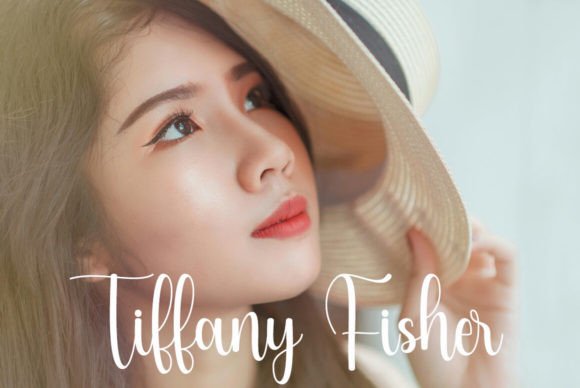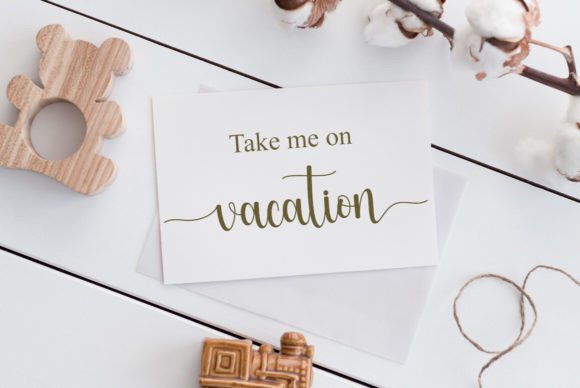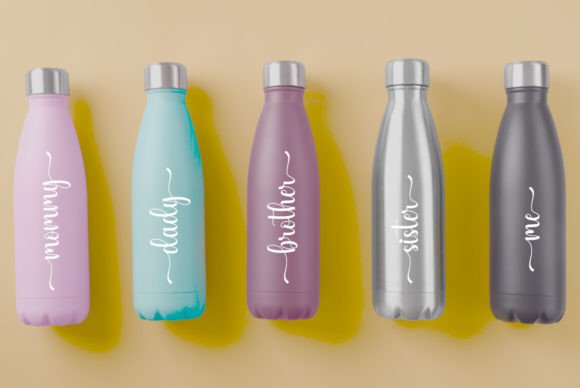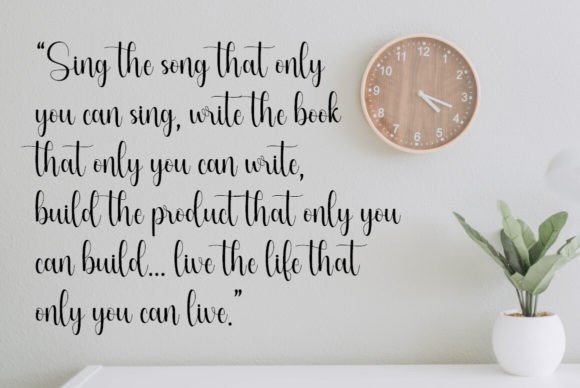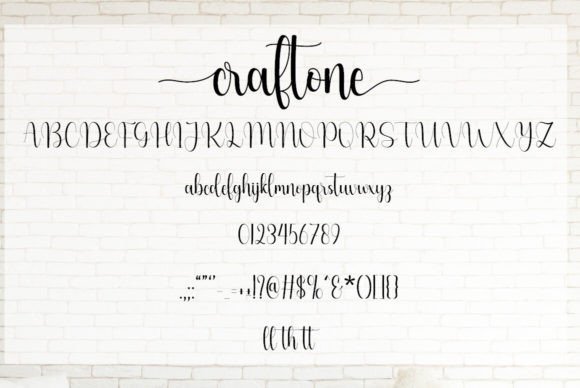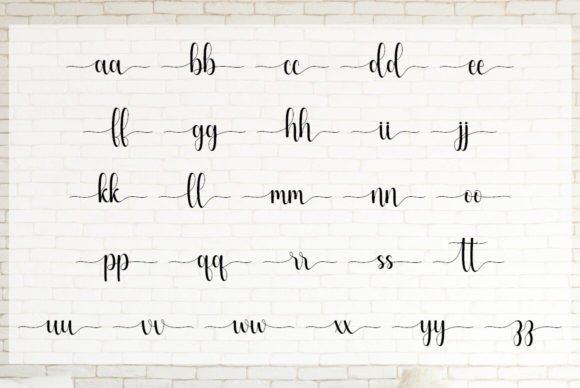
Introducing Craftone Font: Elevate Your Designs with Elegance and Style
In the world of typography, a well-crafted font can make all the difference in transforming a design from ordinary to extraordinary. Meet Craftone, a stunning handwritten font that embodies the perfect blend of elegance and style. This beautiful font is designed to add a touch of sophistication to various design projects, including wedding invitations, appreciation notes, memorable quotes, greeting cards, business cards, logos, and more.
The Charm of Craftone
Craftone boasts an exquisite charisma that sets it apart from other fonts. Its elegant and refined appearance makes it an ideal choice for designers and crafters looking to add a personal touch to their work. Whether you’re creating a wedding invitation, a business card, or a social media graphic, Craftone’s unique charm is sure to captivate your audience.
One of the standout features of Craftone is its versatility. This font can be used in a wide range of design projects, from formal events to casual expressions. Here are some ideas to get you started:
- Wedding invitations and ceremony programs
- Appreciation notes and thank-you cards
- Memorable quotes and social media graphics
- Warm greeting cards and holiday cards
- Professional business cards and logos
Craftone isn’t just a visually appealing font; it’s also PUA (Private Use Area) encoded, making it easy to access a delightful assortment of glyphs and alternates. This feature allows designers to experiment with different variations and create unique designs that stand out from the crowd.
A Creative Tool for Designers and Crafters
Craftone is more than just a font; it’s a creative tool designed to help designers and crafters deliver unforgettable expressions. With its elegant appearance and versatile features, this font is perfect for:
- Graphic designers looking to add a personal touch to their work
- Crafters creating handmade cards and invitations
- Small business owners seeking to establish a unique brand identity
- Social media influencers and bloggers looking to elevate their visual content
Why Choose Craftone?
With so many fonts available, why choose Craftone? Here are just a few reasons:
- Unique and elegant appearance
- Versatile and adaptable to various design projects
- PUA encoded for effortless access to glyphs and alternates
- Easy to use and integrate into your design workflow
- Perfect for designers and crafters looking to add a personal touch to their work
In conclusion, Craftone is a breathtaking fusion of elegance and style that is sure to elevate your designs to new heights. With its exquisite charisma, versatility, and PUA encoding, this font is perfect for designers and crafters looking to add a personal touch to their work. So why wait? Download Craftone today and start creating unforgettable expressions that leave a lasting impression.